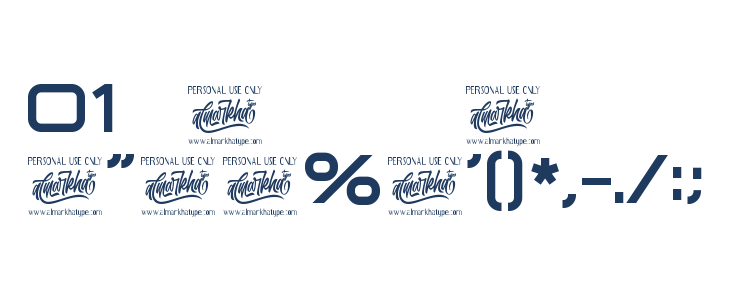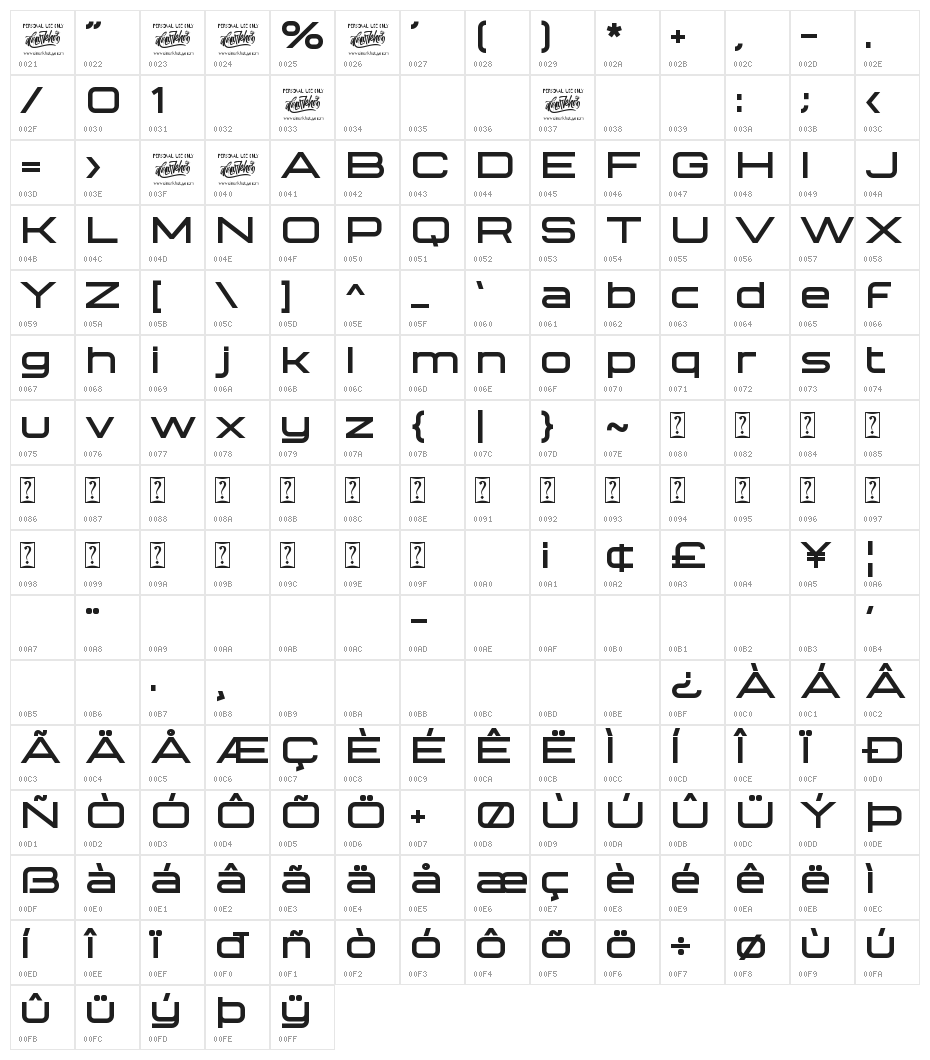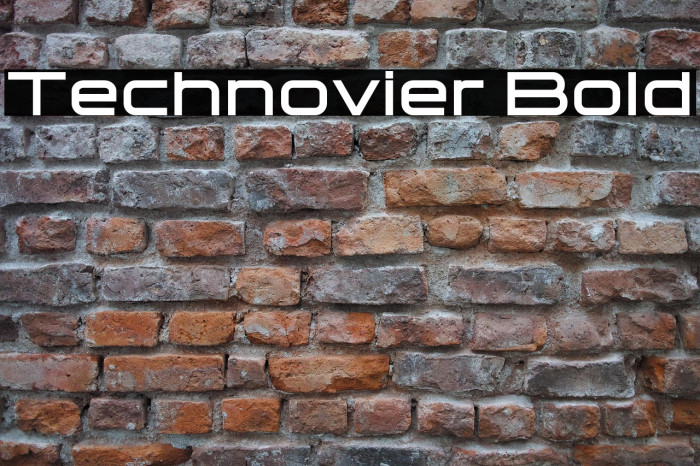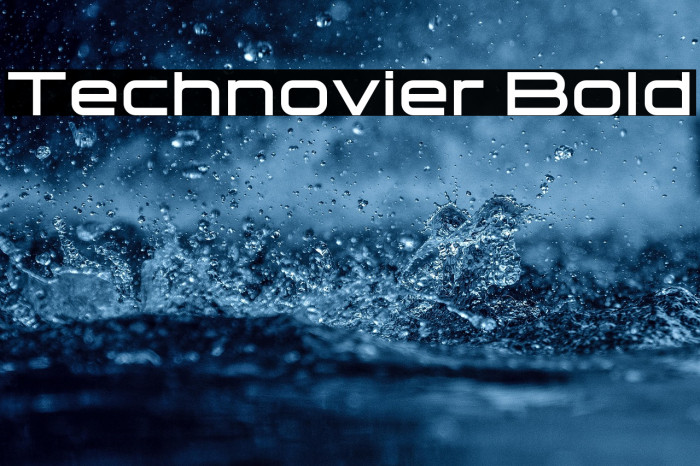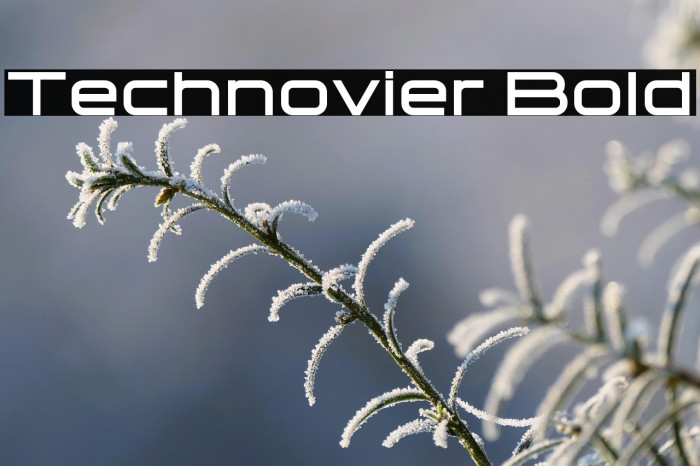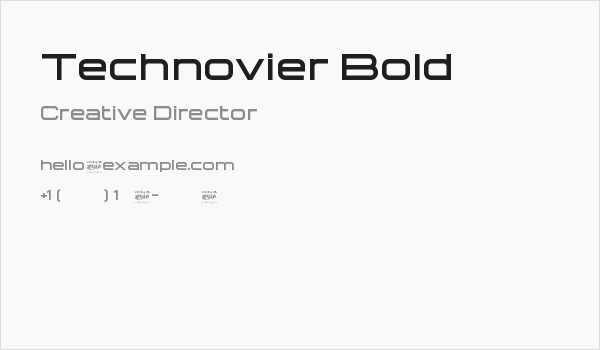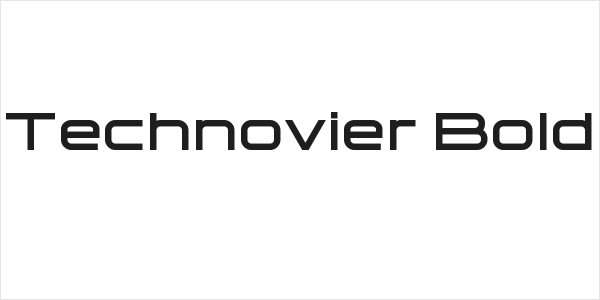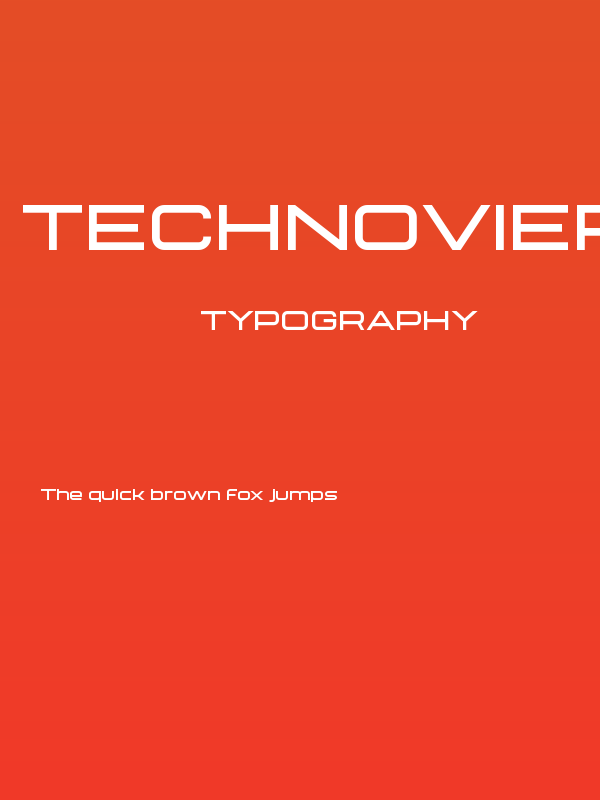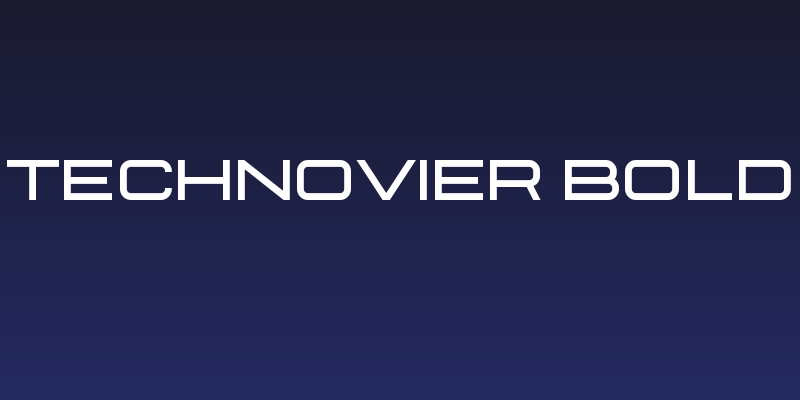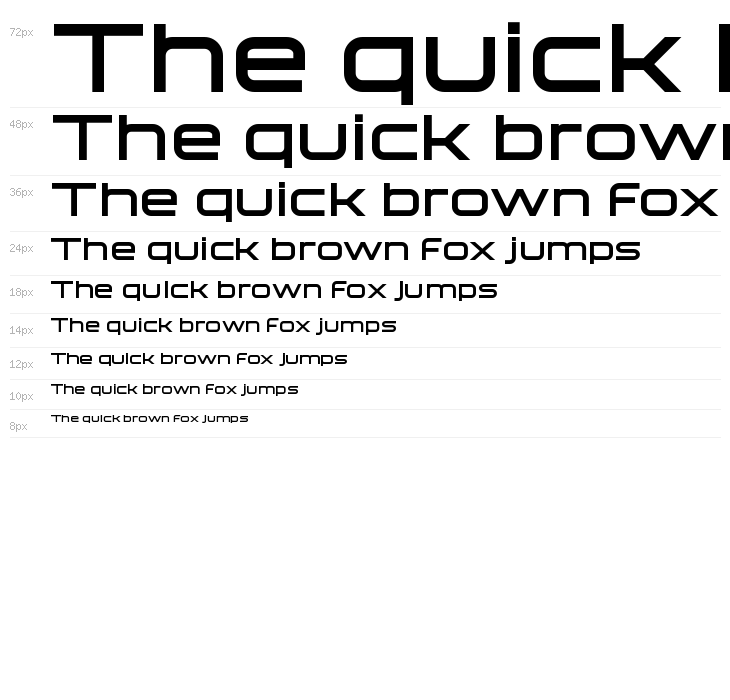
Technovier Bold Font
Technovier Bold Description
This font features a modern and sleek design with a futuristic touch. The characters are bold and geometric, with a consistent stroke width that gives it a strong, impactful presence. The uppercase letters are particularly striking, with sharp angles and clean lines that convey a sense of precision and technology. The lowercase letters maintain the same geometric style, ensuring uniformity across the typeface. The numerals and special characters are designed to match the overall aesthetic, making it suitable for a variety of digital and print applications. The font's clean and minimalistic design makes it ideal for projects that require a contemporary and professional look.
| Use Case | Headlines, Logos, Digital interfaces |
| Proposed Projects | Ideal for technology branding, digital interfaces, video game design, and modern advertising. |